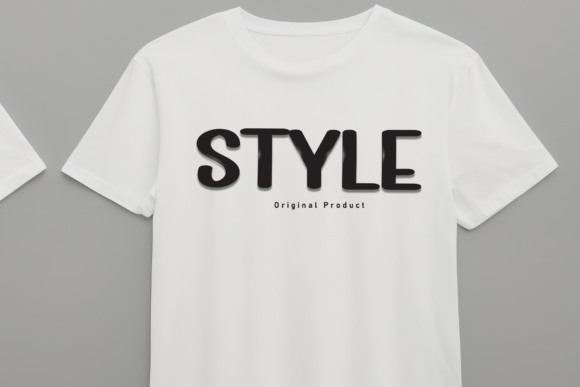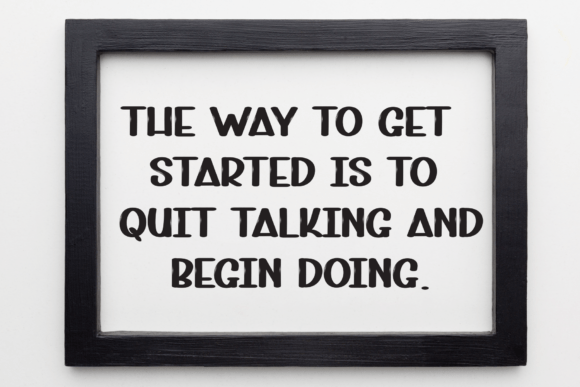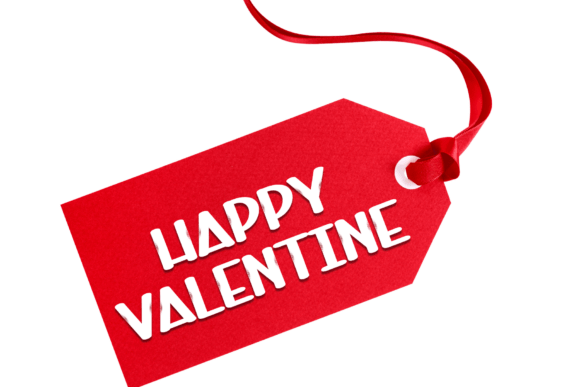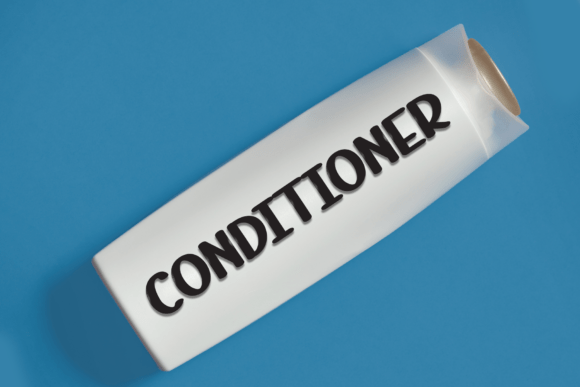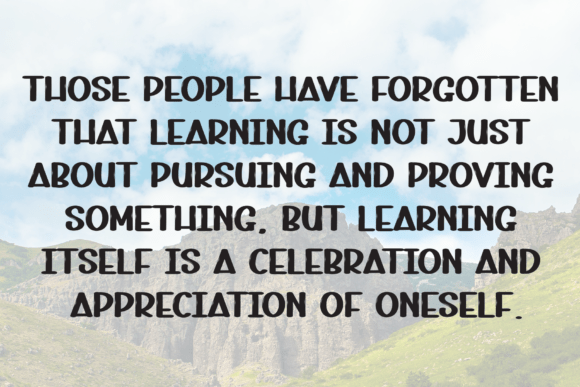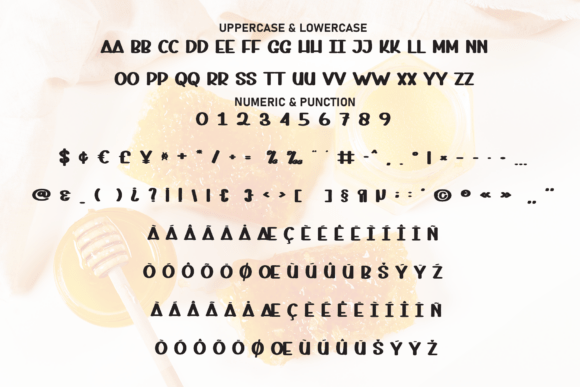
Introduction to Honey Candy Font
As you sit at your desk, surrounded by design books, computer screens, and endless ideas, you know that sometimes the perfect font can make all the difference in bringing your creative project to life. That moment of ‘aha’ when you find the perfect font to match your vision is priceless. For many designers, it’s the culmination of hours spent searching for the perfect design resource – and that’s exactly what you’ll discover with the delightful Honey Candy Font.
This charming handwritten display font is a game-changer for designers looking to add a touch of whimsy and personality to their work. With its free download option and high-quality design, it’s the perfect addition to any creative project. Whether you’re designing wedding invitations, greeting cards, or social media graphics, the Honey Candy Font is sure to bring a smile to your face and a sparkle to your design.
What sets this font apart is its versatility and playfulness, making it an excellent choice for designers who want to inject a little joy into their work. With a transparent background and seamless design, you can use it to elevate your creations and give them a voice that’s uniquely yours.
- Unique characteristics include whimsical, hand-drawn style and varied letterforms
Honest Review: Honey Candy Font
I recently stumbled upon the Honey Candy Font, and I’m excited to share my thoughts on this lovely design resource. The first thing that caught my attention was its whimsical and playful nature, making it perfect for creative projects that require a touch of sweetness.
- ✨ The font’s unique style and character set make it ideal for projects that need a distinctive look.
- ⚠️ The font only comes in a transparent background, which may not be suitable for all design projects.
- ⚠️ The character set is relatively limited, which may not be ideal for projects that require a wide range of characters.
Overall, I’m impressed with the Honey Candy Font’s unique style and high quality. While it may not be perfect for every design project, it’s definitely a great addition to any designer’s toolkit. If you’re looking for a fun and playful font to add some personality to your creative project, the Honey Candy Font is definitely worth checking out.
Common Use Cases for Honey Candy Font
The Honey Candy Font is ideal for creative projects such as invitations, brochures, and social media graphics. Its playful and whimsical design makes it perfect for children’s parties, weddings, and other special occasions.